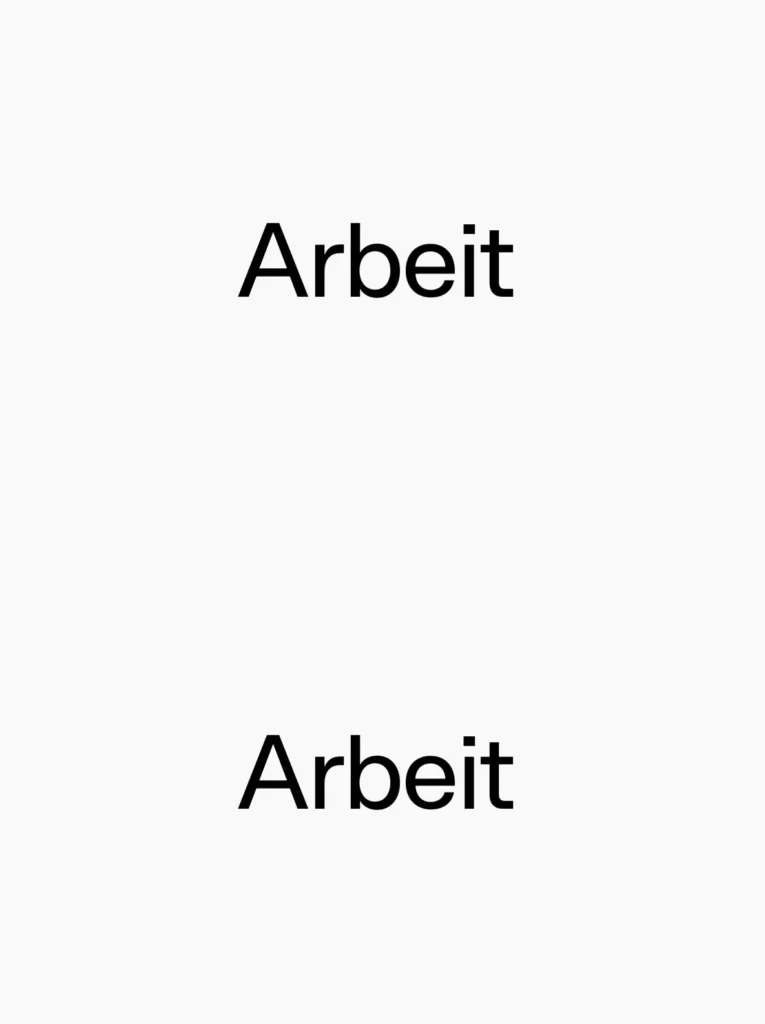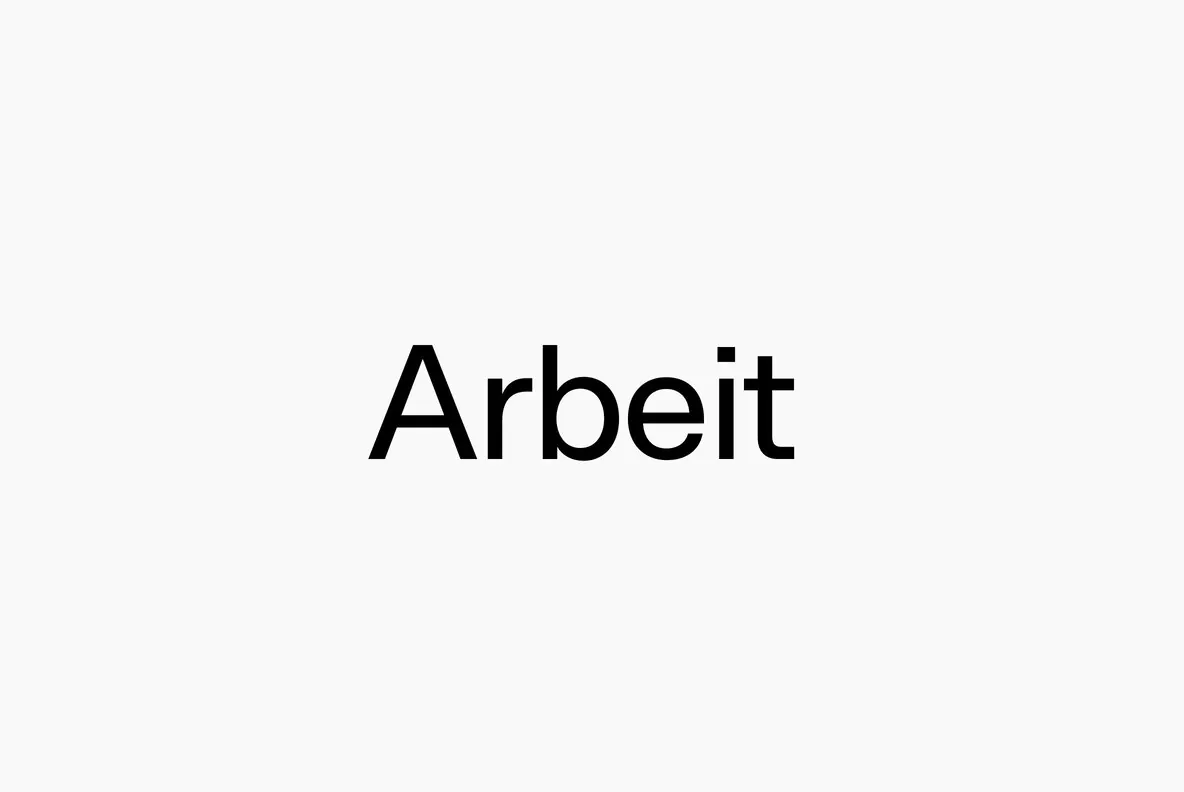
Arbeit — Neo-Grotesque, Made Practical
Arbeit is a functional Neo-Grotesque typeface designed for clear, reliable communication. Its straightforward forms suit interface design, editorial typography, and brand systems where neutrality and consistency matter. Use it when you need a modern grotesque that stays calm on the page and readable on screen.
The complete family includes a variable version of the font, giving you flexible control across weights and settings while staying within the same typographic voice. Arbeit works well for designers who want a dependable Neo-Grotesque font with a clean, contemporary feel and a practical range for everyday design work.